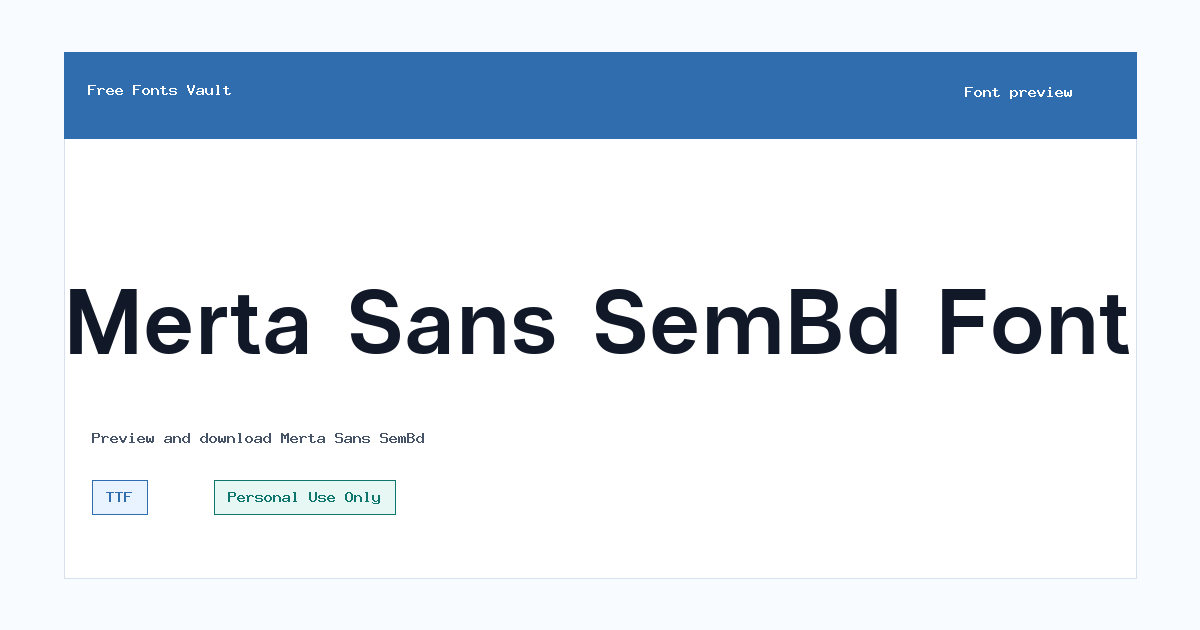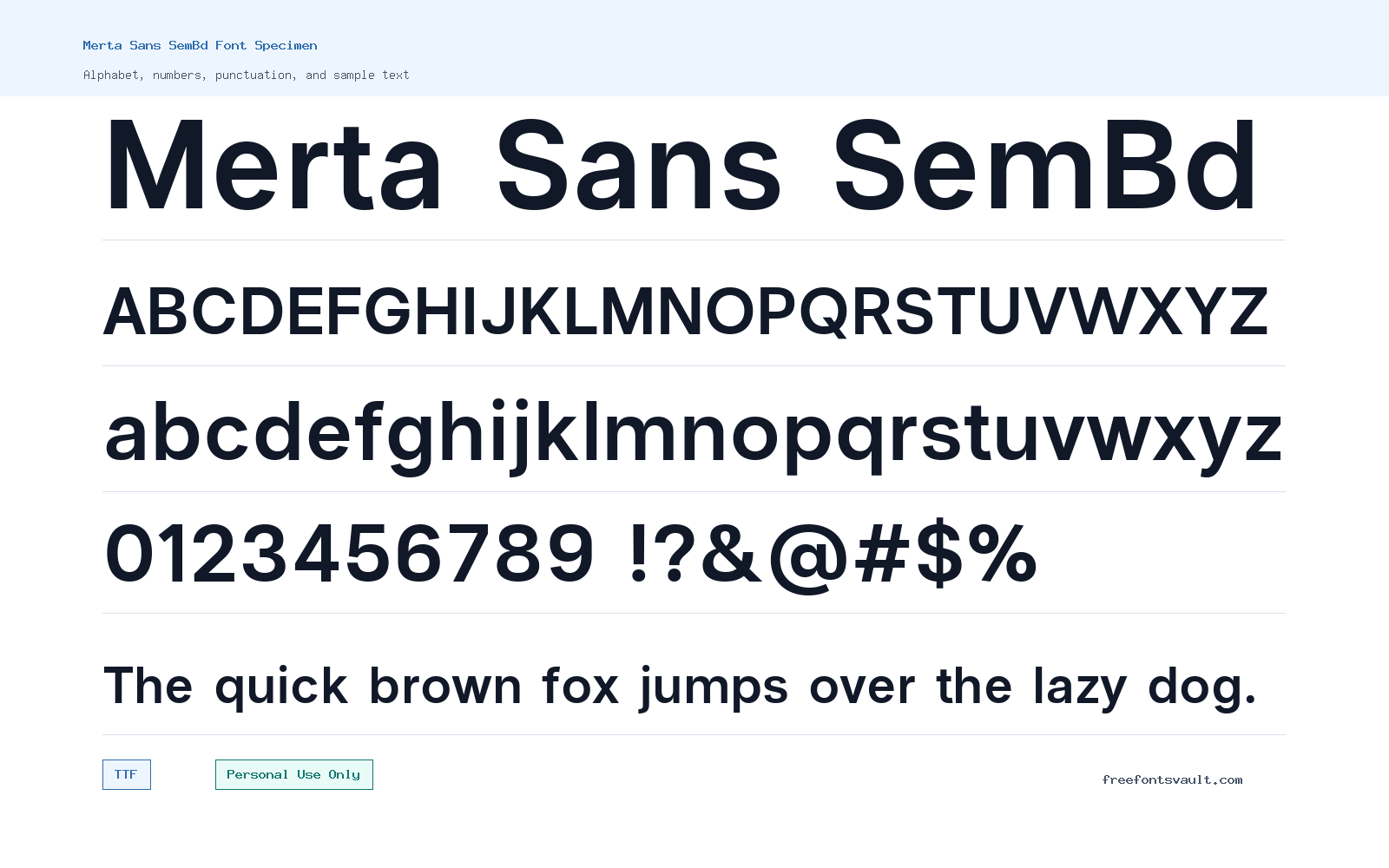
Merta Sans SemBd
Merta Sans SemBd Font
• Designer Diki Pradipta Tri Atmojo
• Foundry Lettertype Studio Co.
Merta Sans SemiBold is a clean, modern sans serif style from the Merta Sans family. This SemiBold cut has enough weight for confident headings, logo drafts, posters, and interface mockups while still keeping a neat, readable structure.
About Merta Sans SemiBold
Merta Sans is presented by Lettertype Studio as a modern sans serif family for branding and digital product work. The SemiBold style sits in a practical middle zone: stronger than regular text weights, but usually less heavy than bold display styles. That makes it useful when you want emphasis without making a layout feel too loud. In short previews, it should work well for navigation labels, section titles, call-to-action text, presentation covers, social graphics, and simple brand marks.
The official Merta Sans family is described as having a structured but approachable tone, with upright and italic styles across a wider family. This download is a TTF font file for the SemiBold demo style, so it is best treated as a trial or personal-use cut rather than the full commercial family. Use the preview tool to test your exact words, especially if you are designing a logo, poster title, packaging mockup, website hero, or app screen. Check uppercase spacing, number shapes, punctuation, and how the font behaves at both large and small sizes before committing it to a design.
For logo work, Merta Sans SemiBold can give a clean and current look without relying on decorative details. Try it with short names, initials, or compact wordmarks, then adjust letter spacing if the design feels too tight. For posters and social graphics, it can handle direct titles and short supporting lines, especially when paired with open spacing and a simple layout. For web mockups, it is better suited to headings, buttons, tabs, and UI labels than long paragraphs, since a SemiBold weight can feel dense in extended reading.
Pairing is easiest when you keep one font quiet and let the other do the work. Merta Sans SemiBold can pair with a neutral serif for editorial contrast, a lighter sans serif for body copy, or a simple monospaced font for product and dashboard mockups. Avoid pairing it with another strong geometric or modern sans that has nearly the same role, because the result can look accidental rather than intentional. If you use it in a brand concept, test the wordmark beside body text, icons, and real interface elements so the design feels consistent.
• SemiBold sans serif weight with a clean, structured appearance
• Useful for short text, headings, buttons, poster titles, and logo drafts
• Part of the broader Merta Sans family shown by Lettertype Studio
• Logo drafts and brand concept mockups
• Poster titles, presentation covers, and social graphics
• Website hero text, buttons, tabs, and UI labels
• SaaS and product-interface mockups
Merta Sans is credited to Diki Pradipta Tri Atmojo and Lettertype Studio Co. The foundry’s product page presents Merta Sans as a larger sans serif family with multiple upright and italic styles.
Who designed Merta Sans?
Merta Sans is credited to Diki Pradipta Tri Atmojo and Lettertype Studio Co.
What is Merta Sans SemiBold best used for?
It works best for short text such as headings, logo drafts, posters, presentation titles, buttons, navigation labels, and UI mockups.